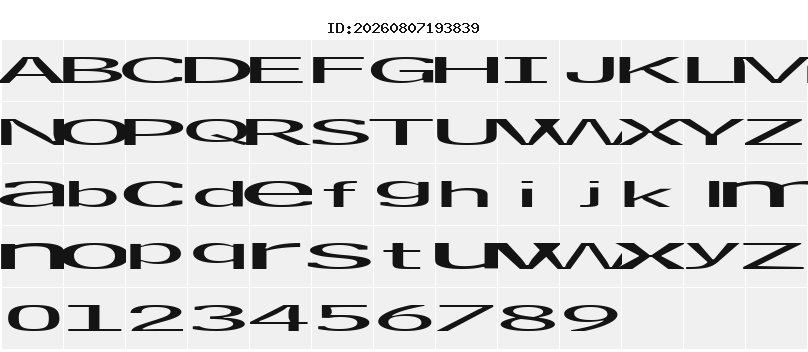
plakativo Preview
About plakativo.ttf
plakativo.ttf is a modern, elegant sans-serif font designed for ultimate readability and visual harmony. Perfect for branding, headlines, web design, and print materials.